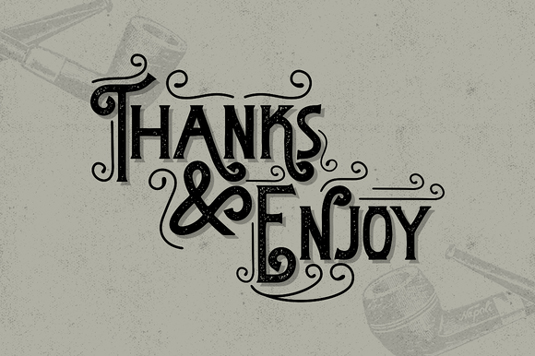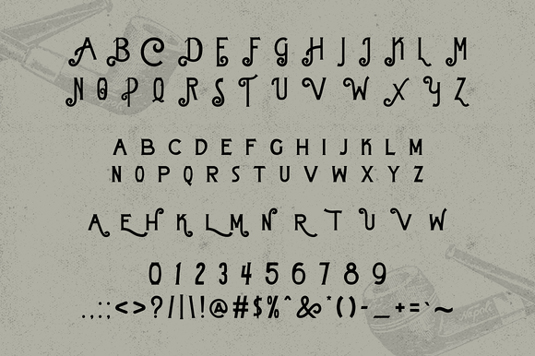
Font of the day: Pipeburn
Pipeburn by Angga Mahardika
Today's typeface of choice is Pipeburn by type designer Angga Mahardika of Try&Error Studio. "I was inspired after seeing my grandfather's Tobacco Pipe," she comments on Creative Market. "I tried to create a classic but modern look, with the addition of ornament smoke. Pipeburn Typeface is suitable for vintage designs, posters, brand name, labels and more."